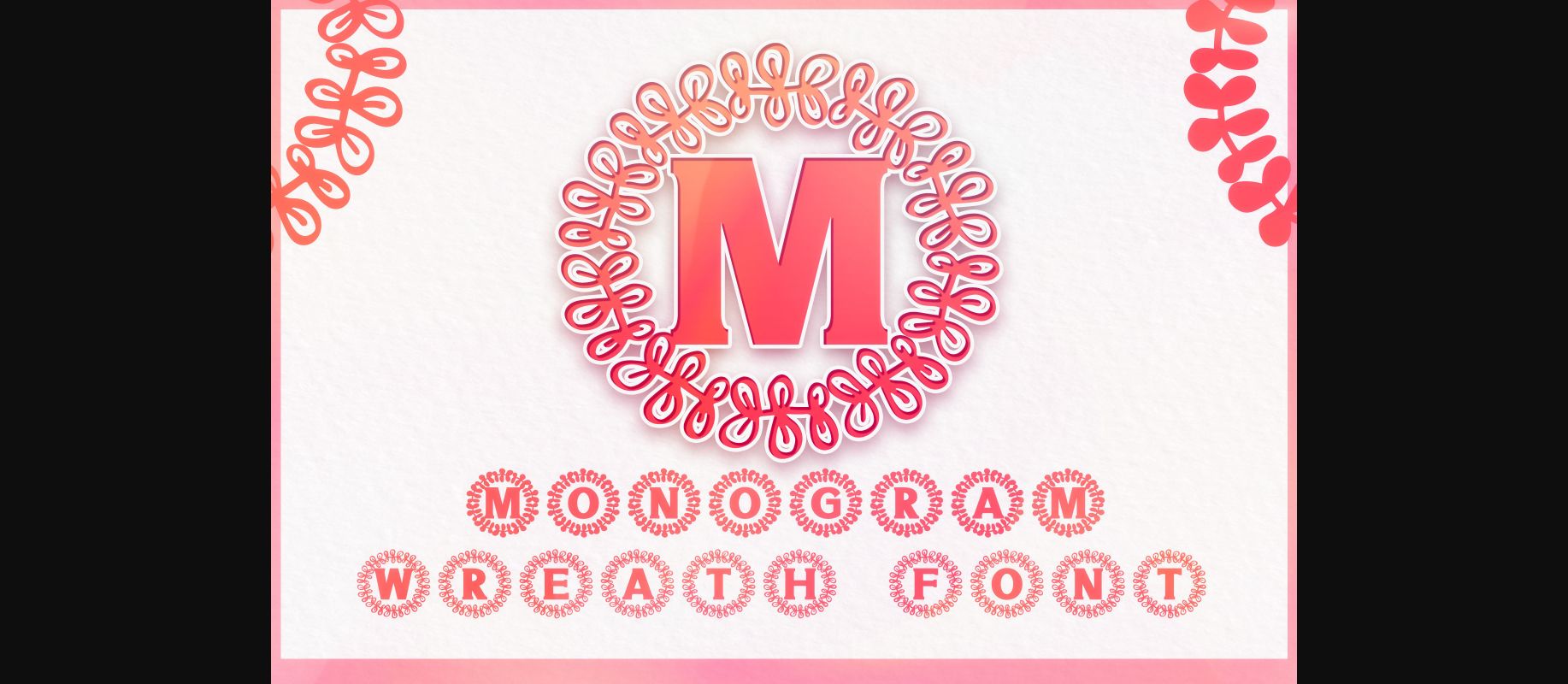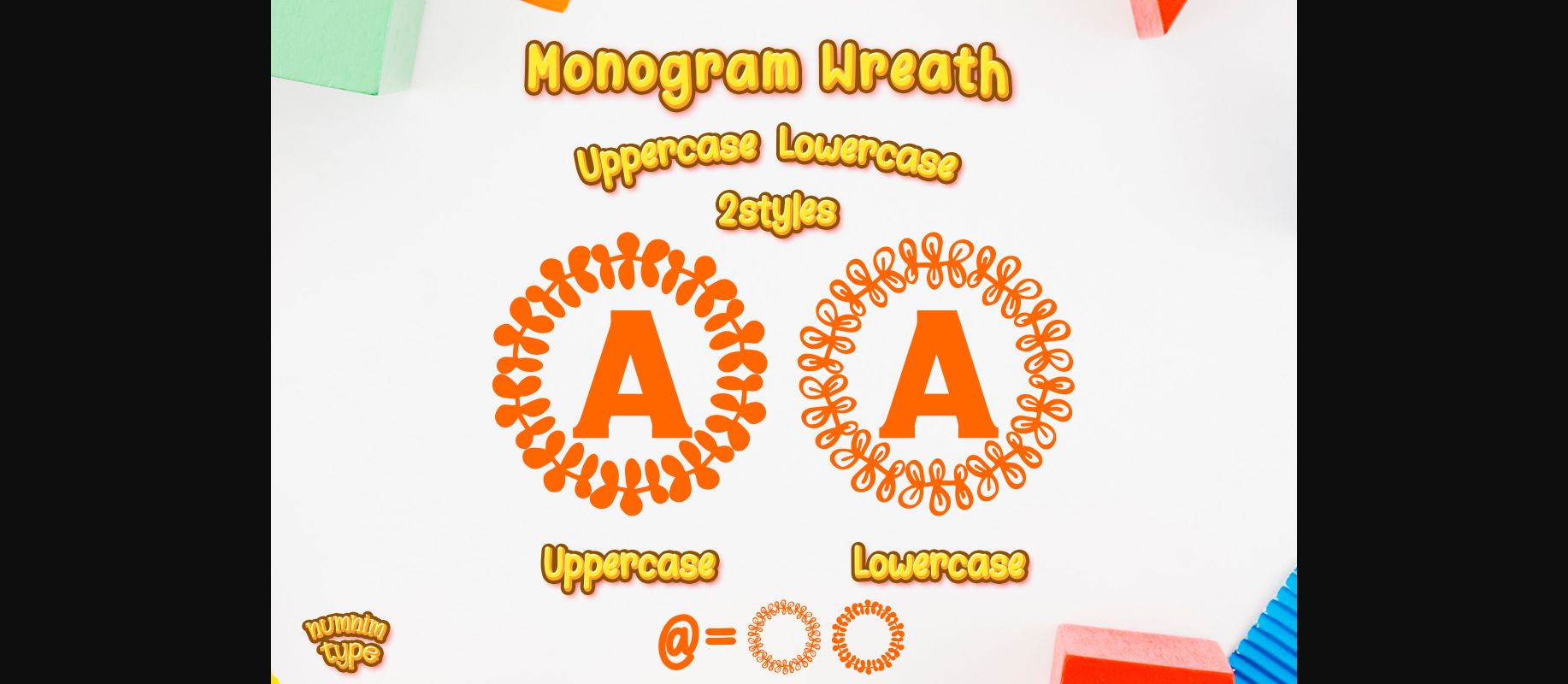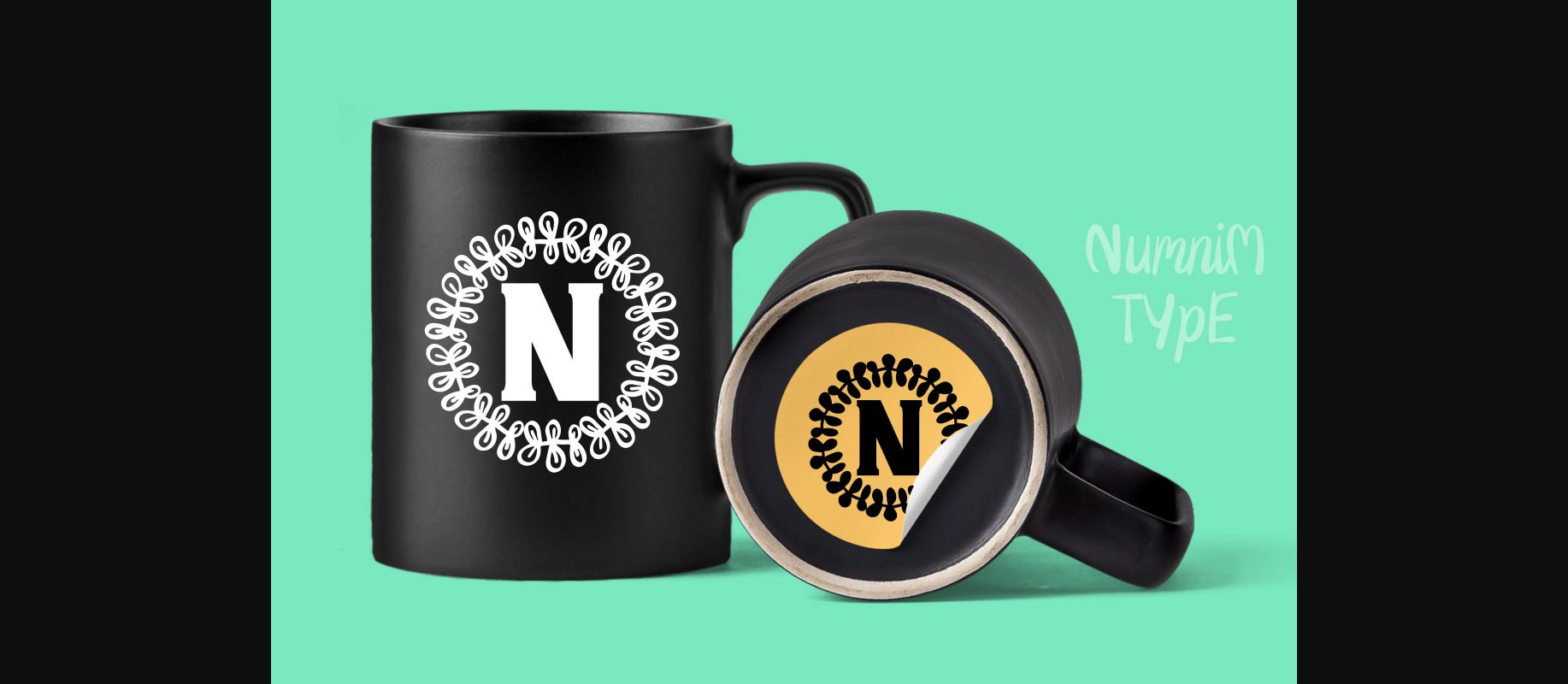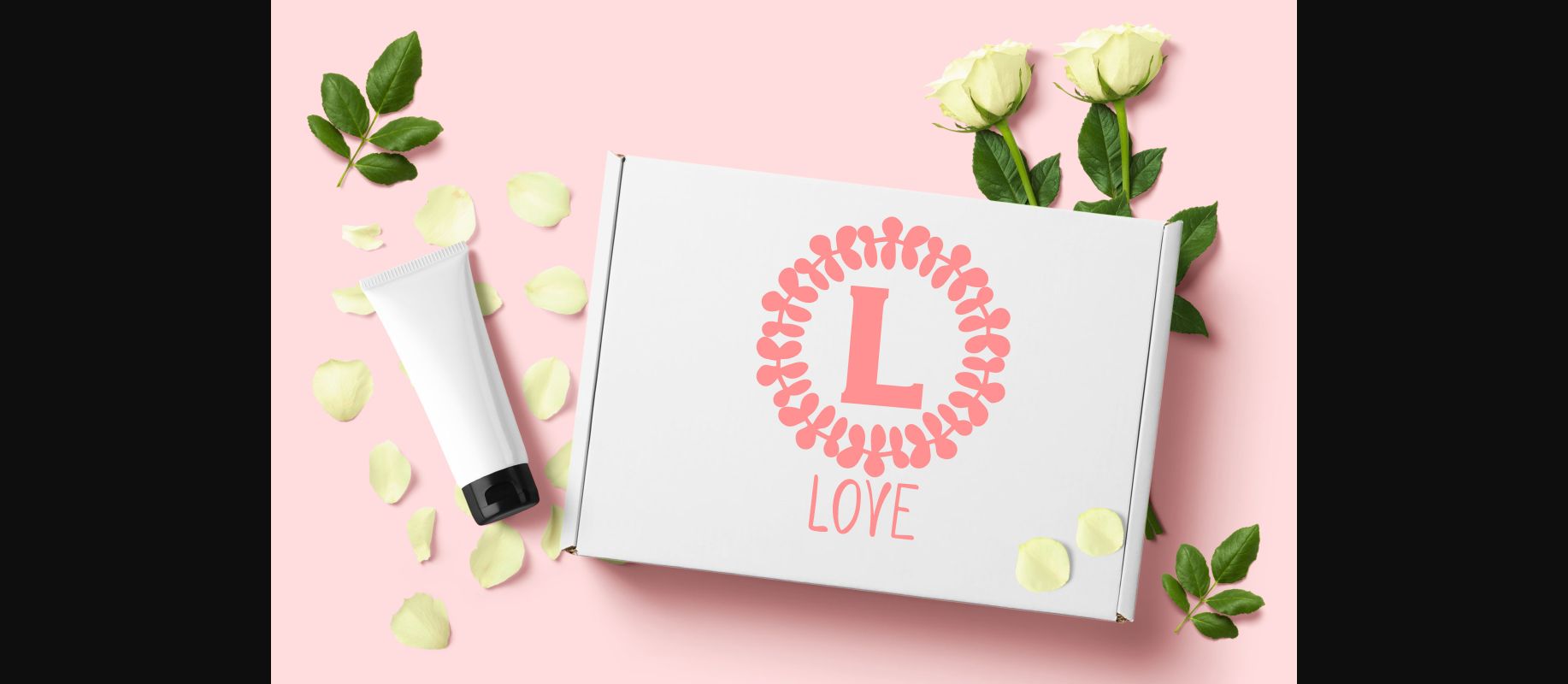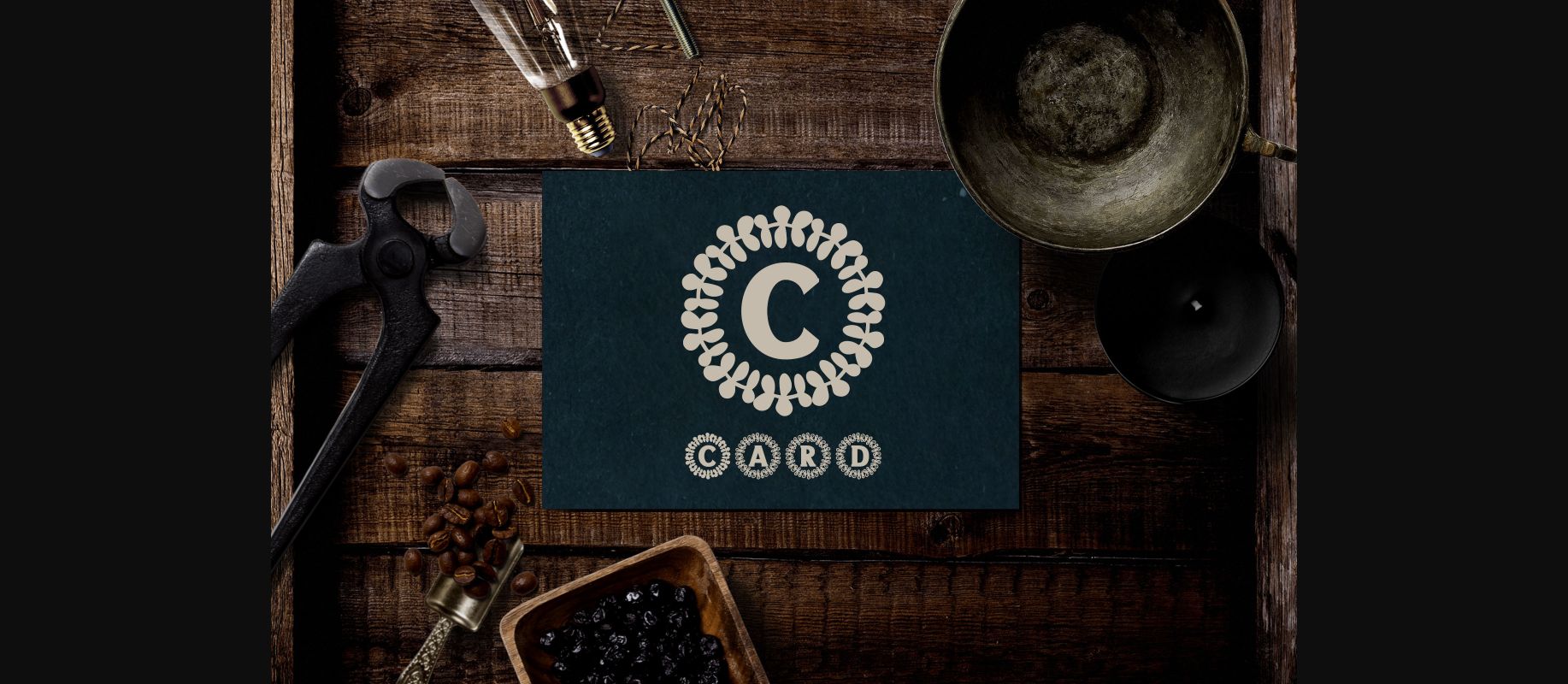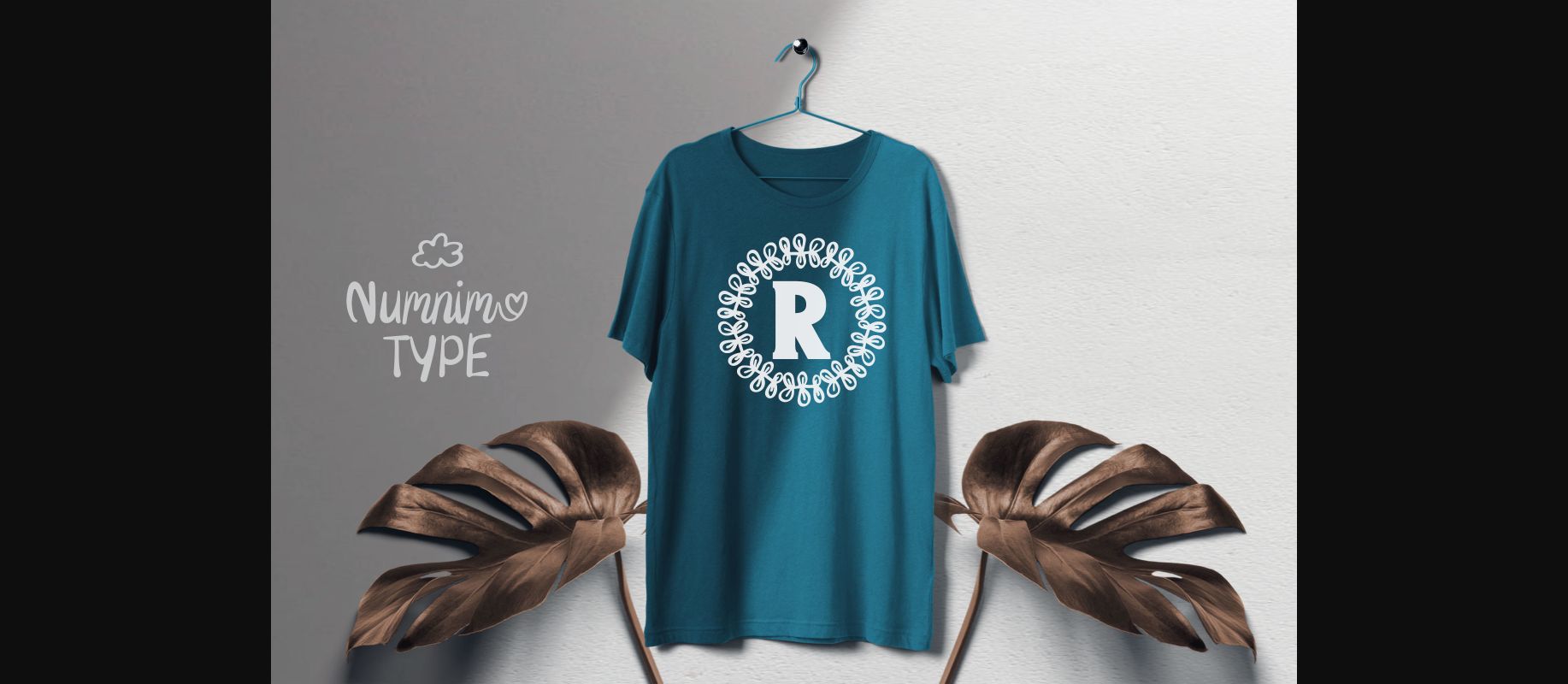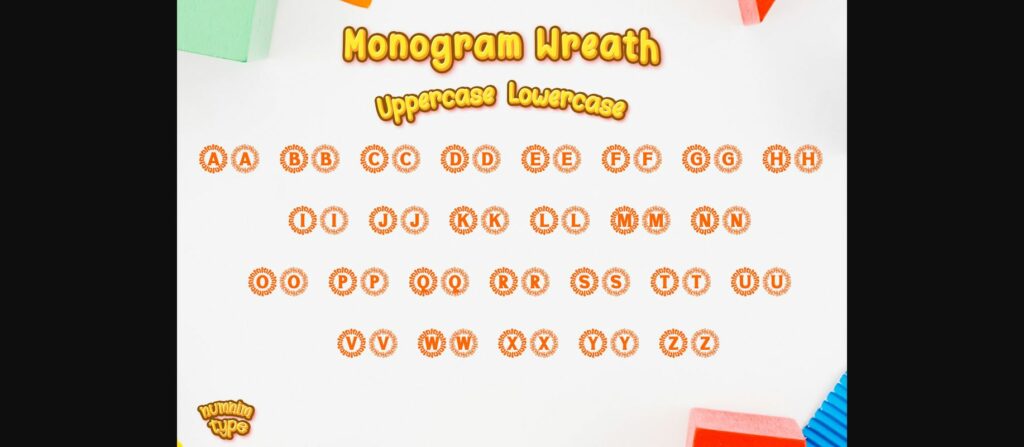
About Monogram Wreath Font
Monogram Wreath is a cool looking and unique decorative font. Add this lovely looking font to each of your love letters, wedding invitations or favorite design ideas, and you will be astounded by the outcome.